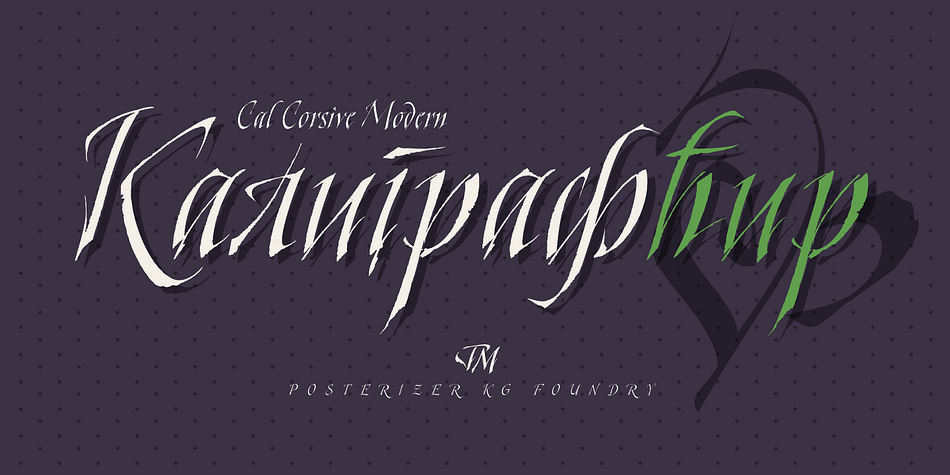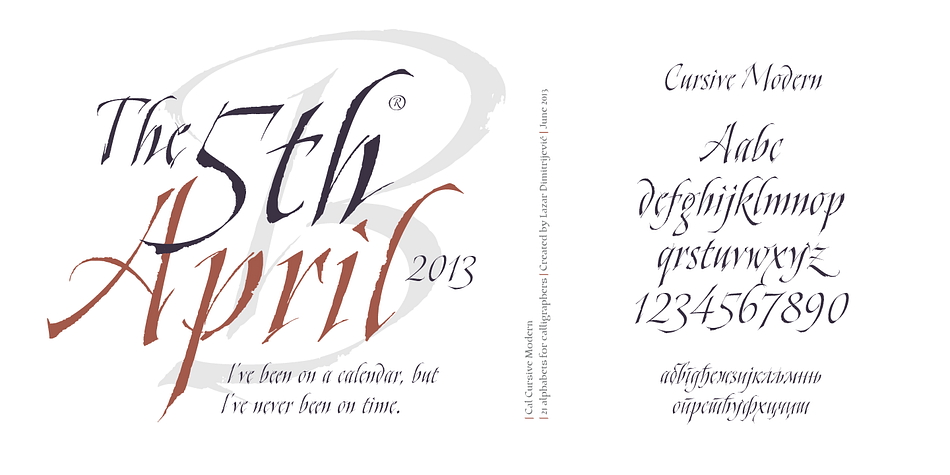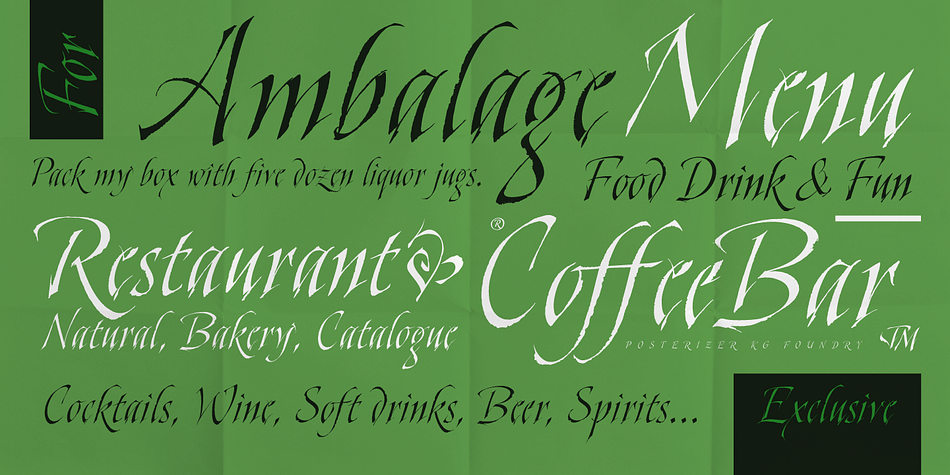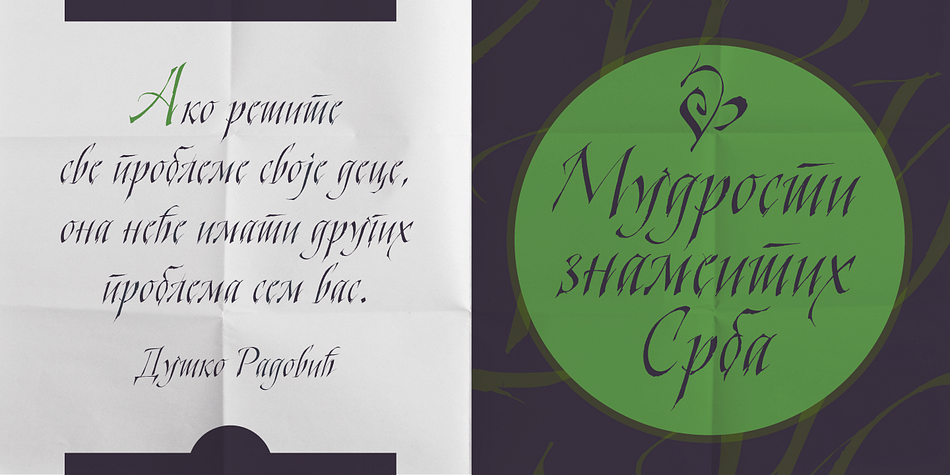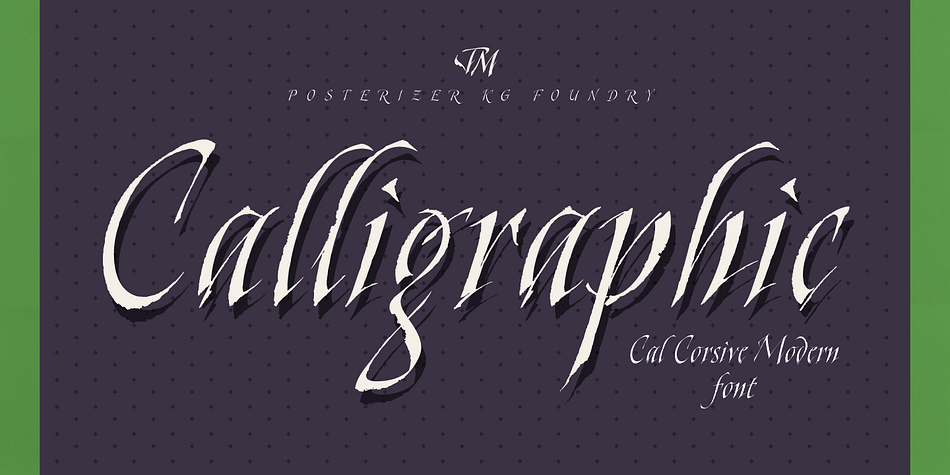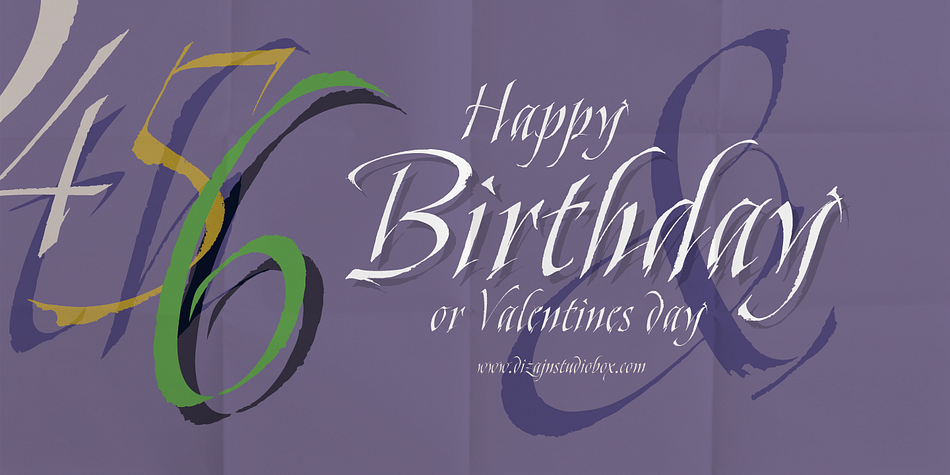
Cal Cursive Modern is a script and brush script font published by Posterizer KG.
Calligrapher Cursive Modern, is one of the calligraphic group of fonts called “21 alphabets for Calligraphers“. All graphemes are taken from calligraphic pages written on Cursive Modern calligraphic style.
This font is ideal for calligraphic sketches or for imitation of ancient manuscripts.
Cal Cursive Modern contains all the Latin and Cyrillic glyphs.